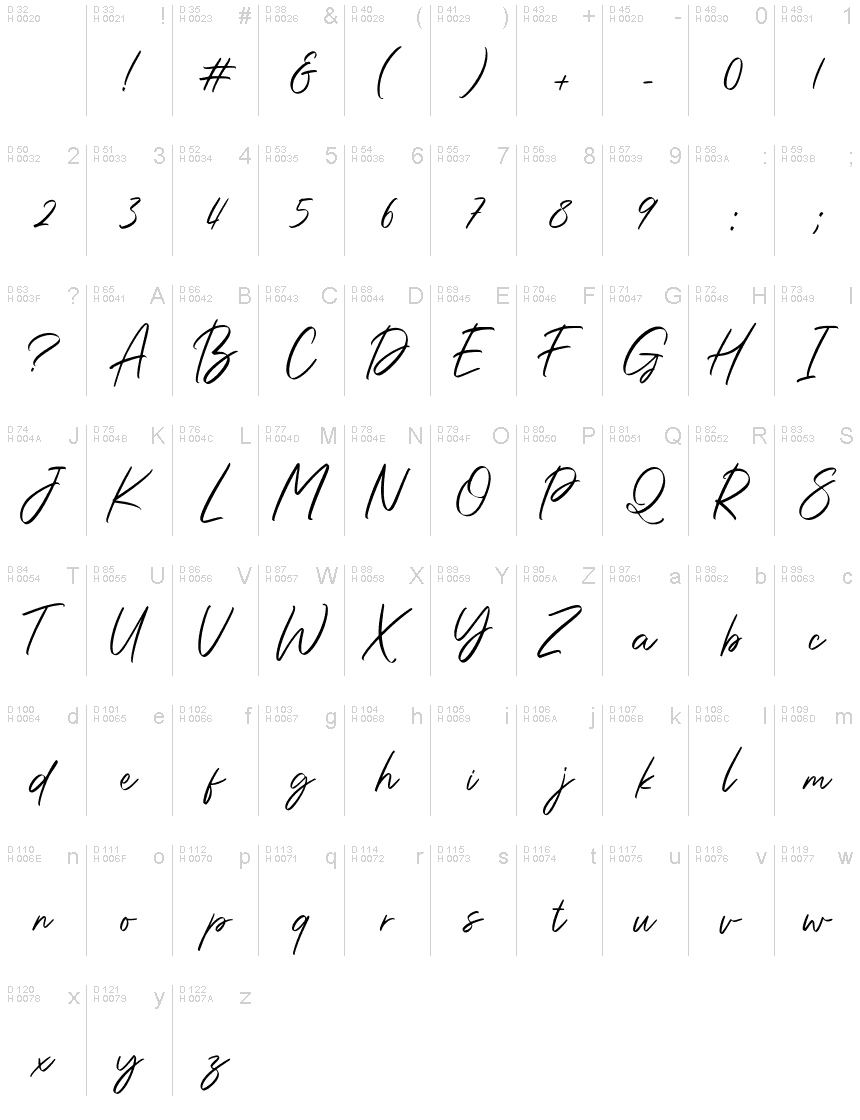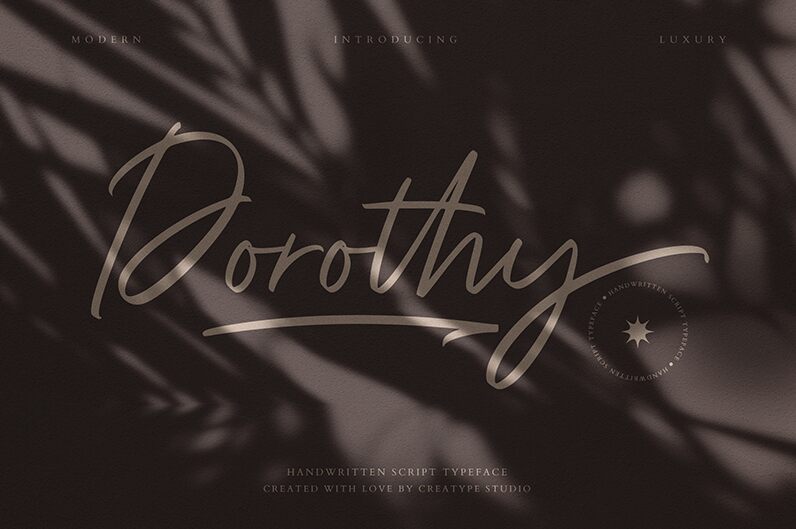
Dorothy Regular
Introducing Dorothy, a handwritten signature font designed by Rian Rahardi. It has a light, condensed feel that will add a beautiful and personal touch to any project. From posters and logos to invitations and quotes, let Dorothy bring your words to life.